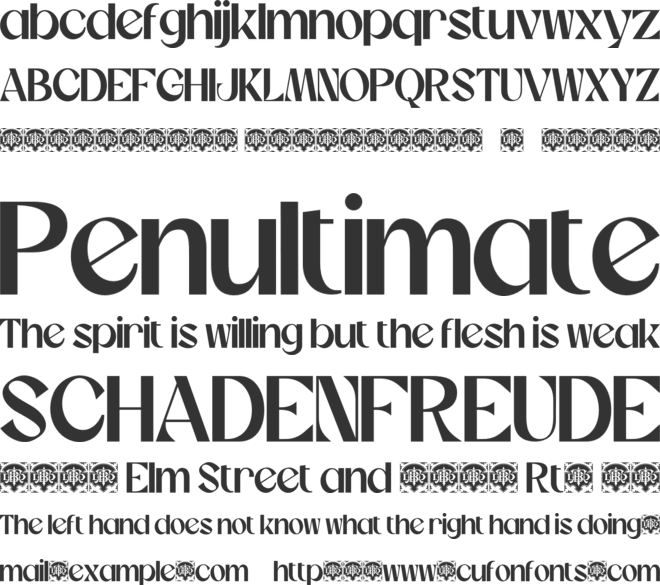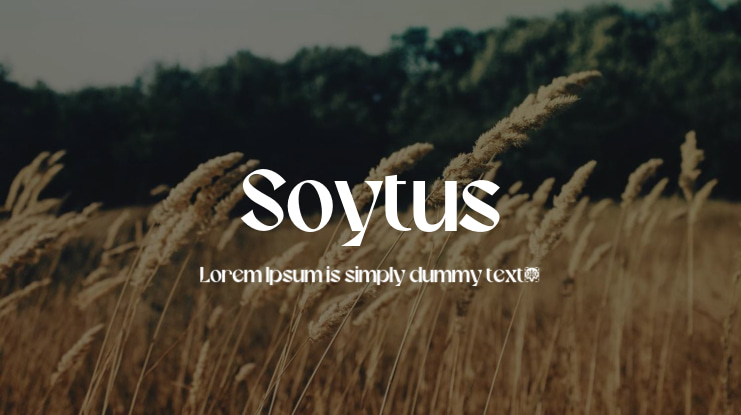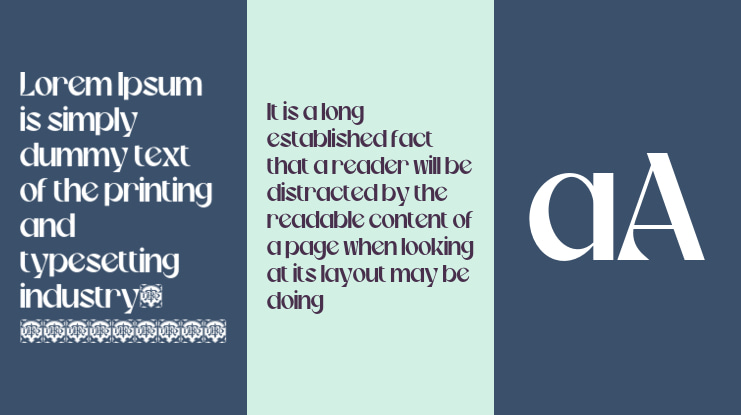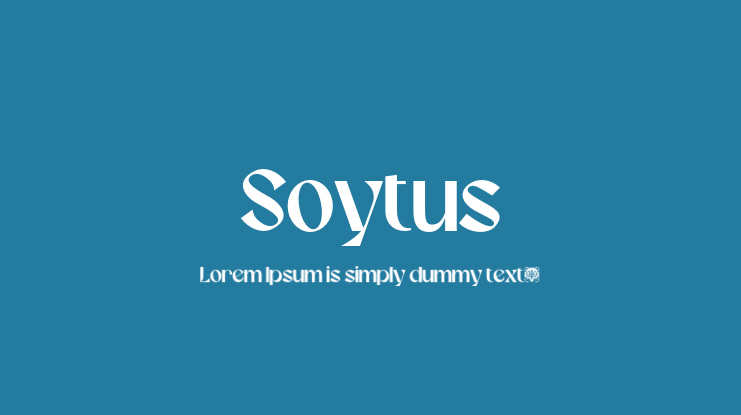
Soytus Font
Introducing Soytus, our casual retro font. This font blends classic elegance with contemporary style. Its clean lines and subtle curves create an aesthetic look. The ligatures add a touch of sophistication and elegance. Additionally, this font includes multilingual support (basic European accents). It's perfect for branding, logo design, editorial design, posters, web design, jewelry, headlines, luxury brands, and any project that needs an elegant touch.